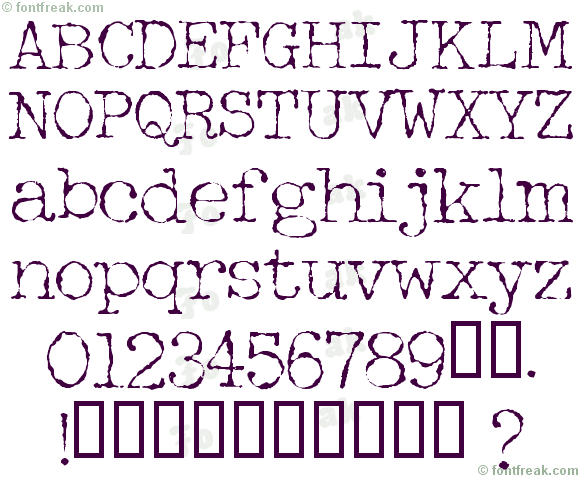
Halbstarke Pica
Halbstarke Pica, designed by Charly Masci in 1995, is a unique display font that captures a vintage charm while maintaining a modern appeal. This font falls into the category of decorative typefaces, characterized by its distinctive, slightly irregular letterforms that evoke a handcrafted feel. The stroke weight varies throughout each character, creating a dynamic contrast that draws the eye and adds character to any design. The overall spacing is balanced, allowing for easy readability while still maintaining a playful aesthetic.
This font is particularly well-suited for a variety of creative projects. Its quirky style makes it an excellent choice for wedding invitations, where a touch of whimsy can enhance the romantic theme. It also works beautifully on movie posters, especially for indie films that aim to stand out with a bold visual statement. Restaurant menus can benefit from Halbstarke Pica’s unique flair, attracting diners with its artistic presentation of the offerings. Furthermore, small business branding—especially for artisanal or boutique shops—will find this font effective in conveying a warm and inviting atmosphere. Content creators looking to add personality to their digital graphics will also appreciate its distinctive qualities.
Target audiences for Halbstarke Pica include graphic designers, small business owners, and content creators who seek to infuse their work with a sense of individuality and charm. The versatility of this font ensures it can adapt to various themes and styles, making it a valuable asset in any designer’s toolkit. The Halbstarke Pica font free download is an opportunity for creatives to incorporate this alluring typeface into their projects, enhancing their visual storytelling and leaving a memorable impression on their audience. Its unique character and charm truly set it apart in the world of typography.